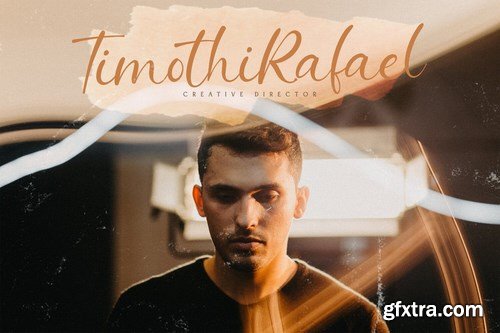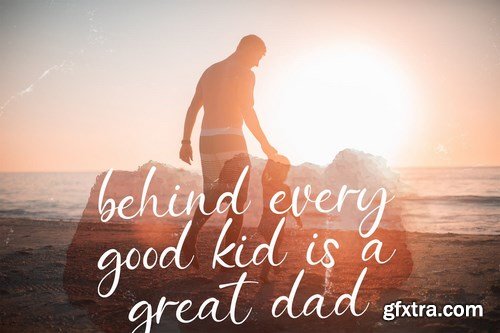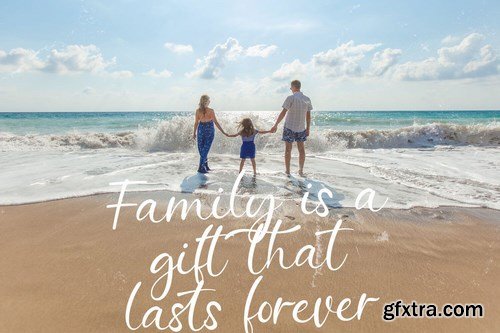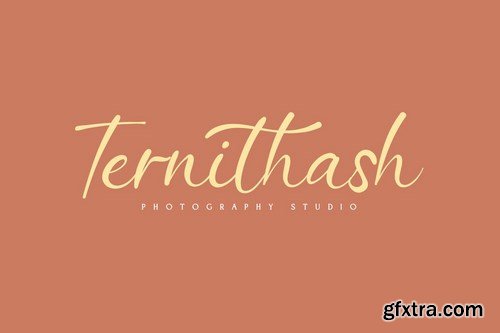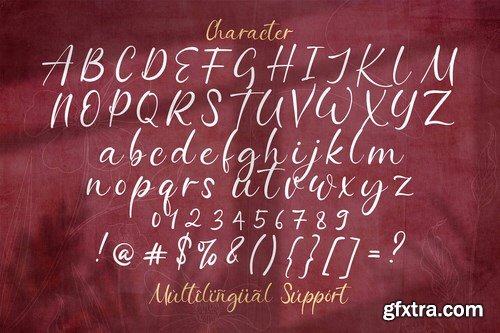
Batheny Rosie is an exquisite handwritten font, masterfully designed to become a true favorite. It maintains its classy calligraphic influences while feeling contemporary and fresh. Fall in love with it and bring your projects to the highest levels!